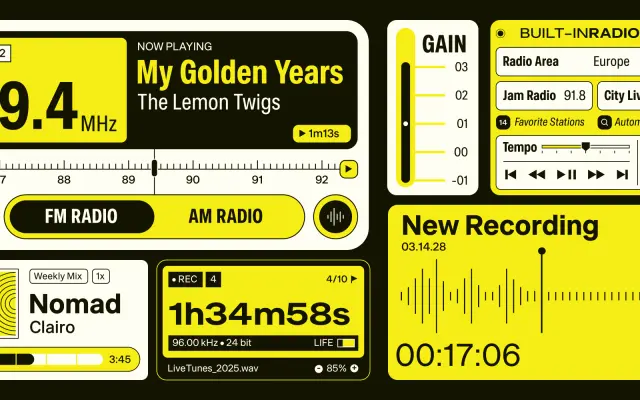
Sinar Grotesk
A broad grotesque family from Tokotype spanning eight weights with italics and variable font support, covering an extensive Latin character set.
Eight upright weights from ExtraLight to Black are matched with a full set of italics, and the family is available as variable fonts for both upright and italic axes. Glyph coverage extends across Latin Extended-A, Latin Extended-B and Latin Extended Additional, accommodating a wide range of European and Vietnamese languages. Priced per weight, the family suits editorial, branding and broadcast contexts where versatility across weights matters.
A contemporary grotesque sans-serif with a broad weight range and variable font support, following conventions of neutral European grotesque tradition.